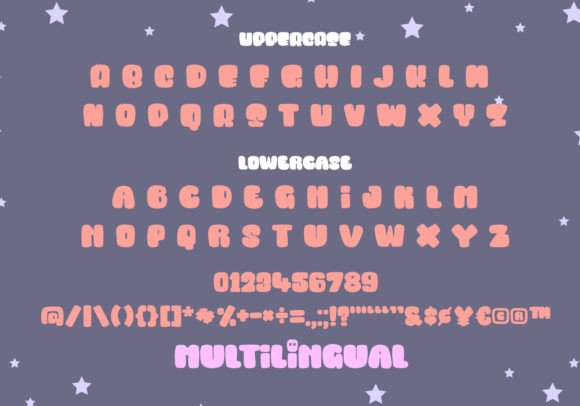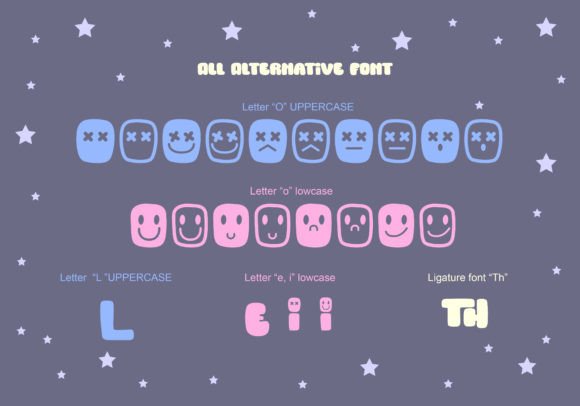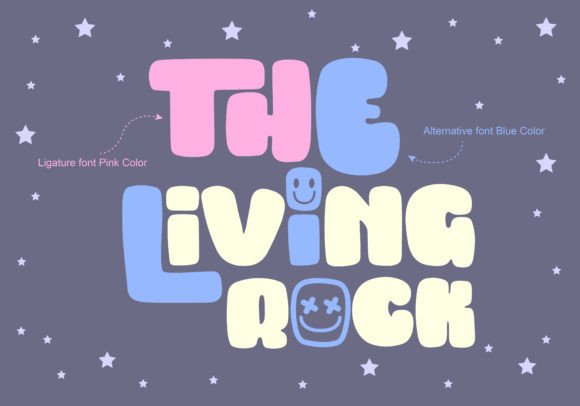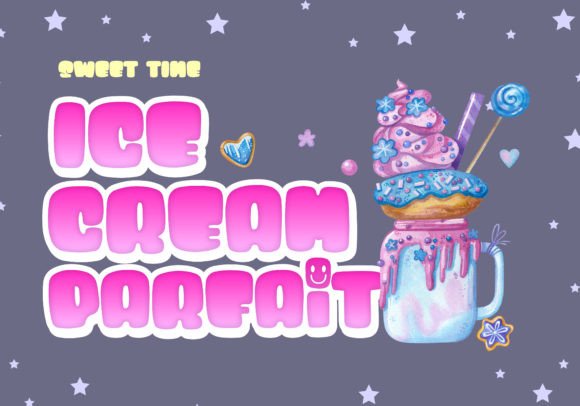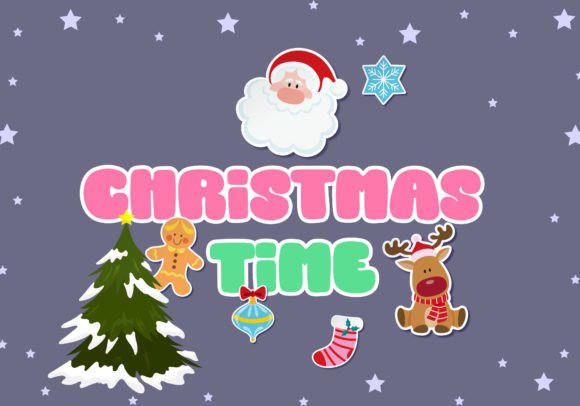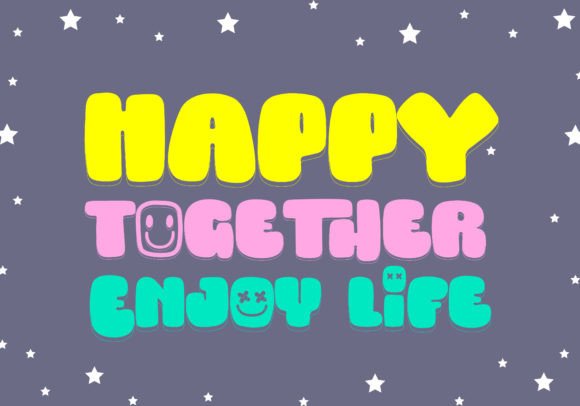
Introduction to Marshmallow Font
Marshmallow is a cute, cool, and friendly display font.
It embodies playfulness and authenticity and is the perfect choice for any childrenโs activity or school project Add this chunky lettered font to your designs and notice how it makes them come alive.
Marshmallow Font offers exceptional quality and versatility, making it a valuable addition to your design toolkit. Whether you’re creating for personal projects or commercial use, Marshmallow Font delivers professional results.